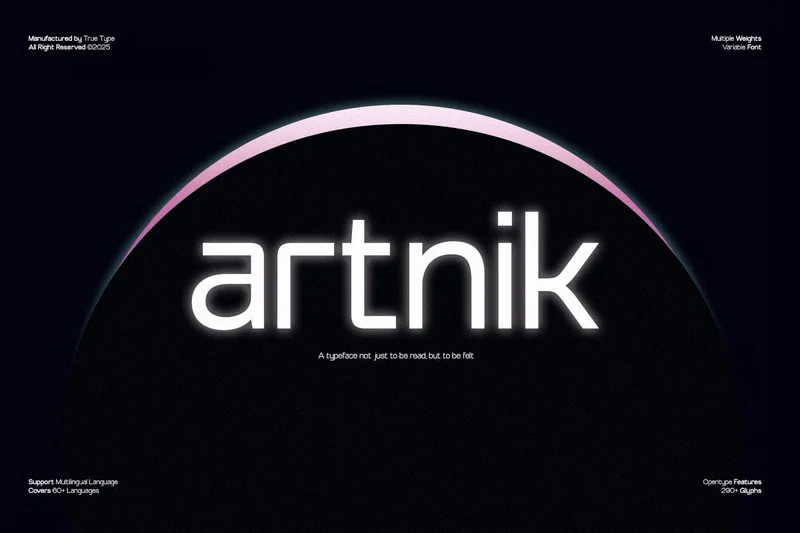
Artnik Modern Geometric Sans Serif Typeface
When I began working on TBJ Artnik, I was reminded of the strength of simple leterforms I had once seen in classic fonts like Futura. That typeface carries a sense of precision, order, and timelessness — but I wanted to create a version that felt more flexible and refreshed for today’s design needs.
From there, I started shaping the leters using circles and straight lines, keeping the proportions balanced while adding subtle details to certain characters to make them friendlier and more recognizable.
The result is TBJ Artnik — a semi-display sans serif that maintains a geometric structure yet remains versatile for a wide range of projects. From branding and editorial work to digital interfaces, Artnik is designed to be clear, clean, and full of character.